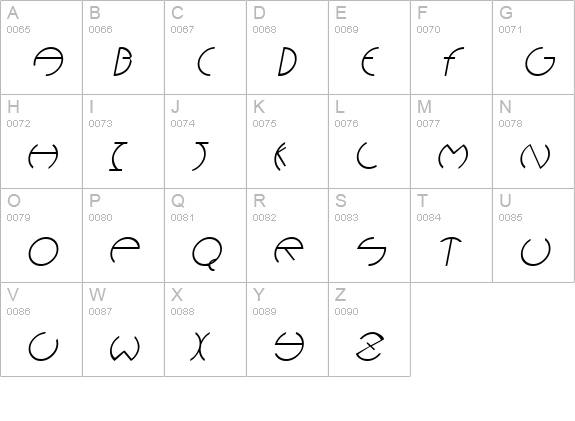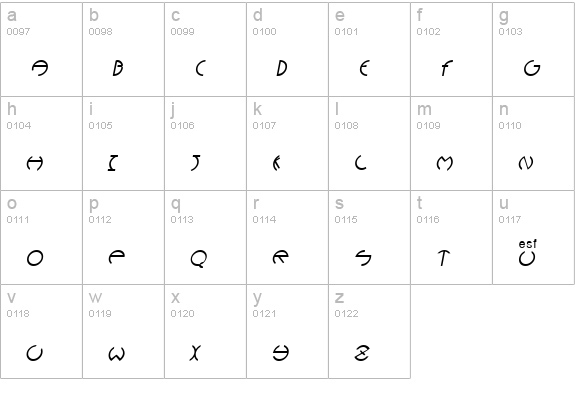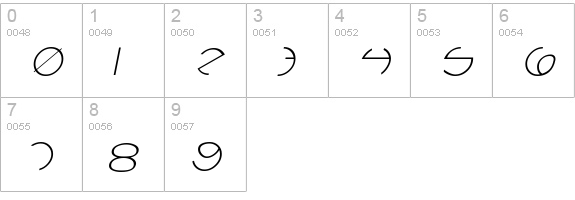
Narcosis Oblique is a distinctive, italic variant in the Narcosis typeface family \xE2\x80\x94 well suited to design and typography projects.
Narcosis Oblique font is a stunning and contemporary typeface that merges elegance with a touch of edginess. Its unique slanted design exudes a sense of dynamism and sophistication, making it perfect for a wide range of design projects. The sleek and stylish letterforms of Narcosis Oblique add a modern flair to any text, elevating the visual appeal of your work. What sets Narcosis Oblique font apart is its versatility - it can be used for anything from branding and advertising to editorial design and web graphics. Whether you are looking to create a bold headline or add a subtle touch of flair to your text, Narcosis Oblique font is sure to make a statement. The best part? Narcosis Oblique font is free to download at FontsMarket.com. So go ahead and elevate your design projects with this striking and contemporary typeface. Download Narcosis Oblique font today and let your creativity shine!